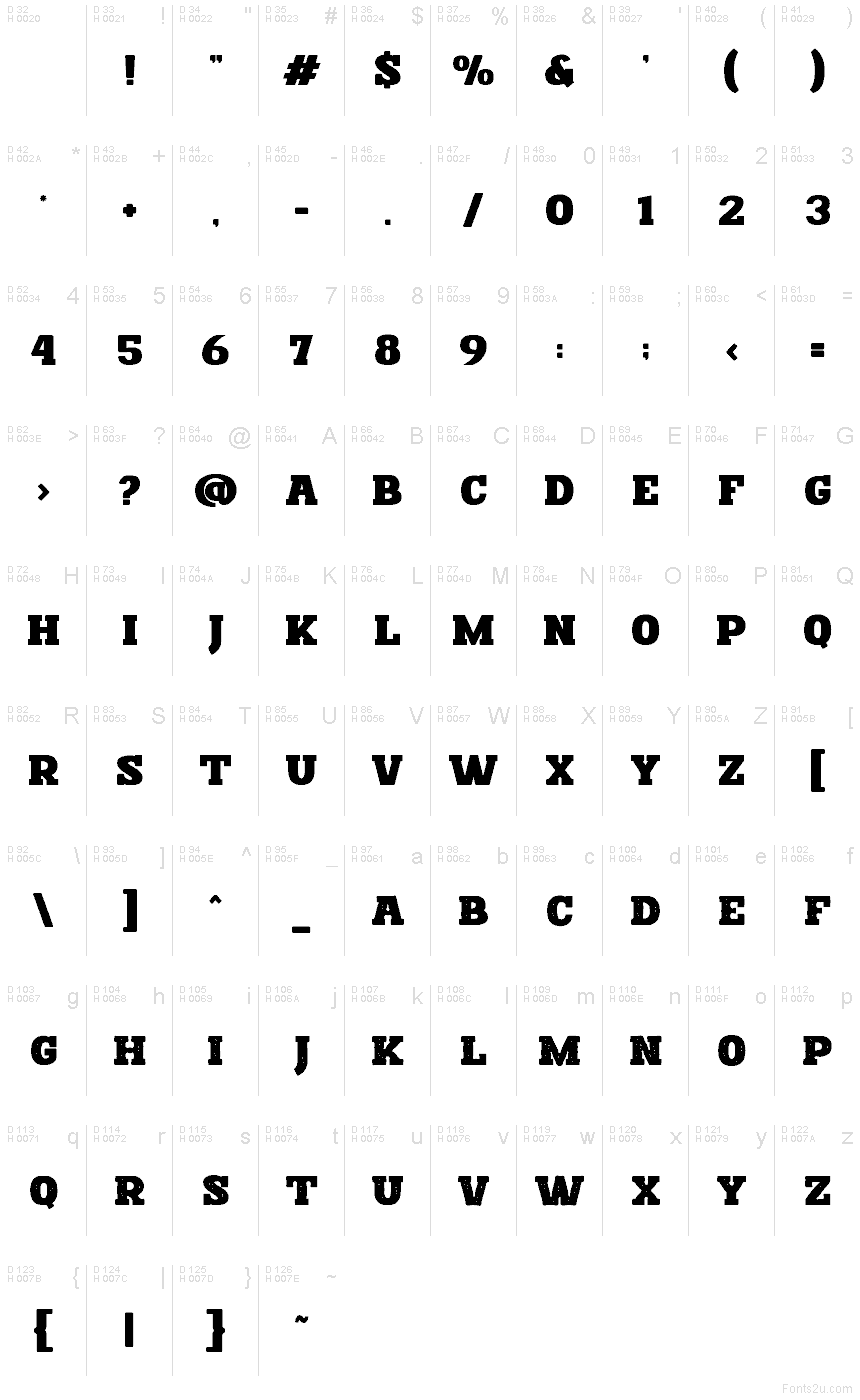
Crafter Pieces
Crafter Pieces font by PutraCetol Studio is a bold display typeface that carries a distinctive handcrafted aesthetic. With its distressed textures and rugged characteristics, this font evokes a vintage appeal through every letter and form. Its thick characters further highlight the visual impression of ruggedness and strengthen its distinctiveness across all usage contexts.